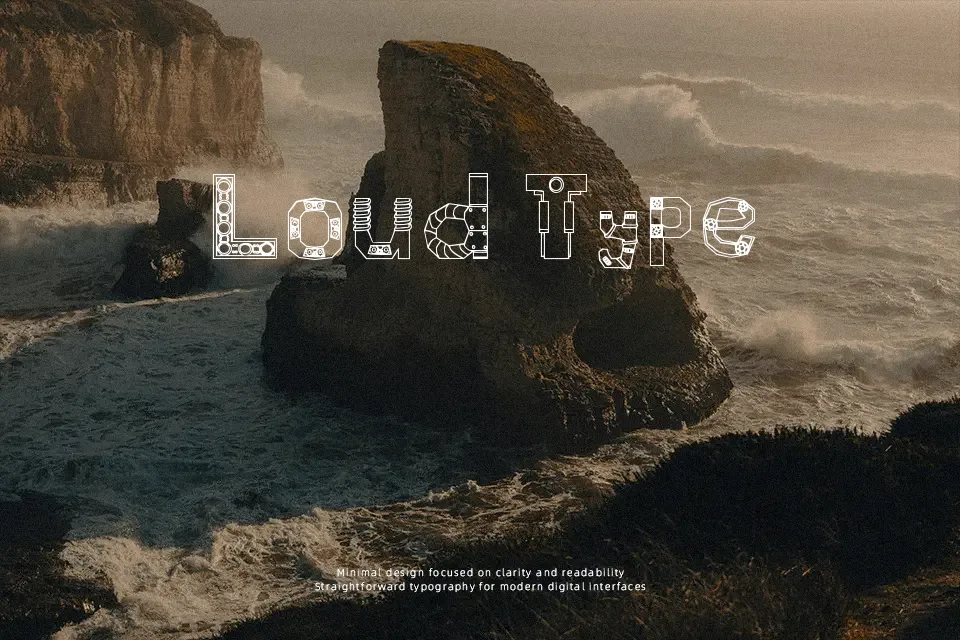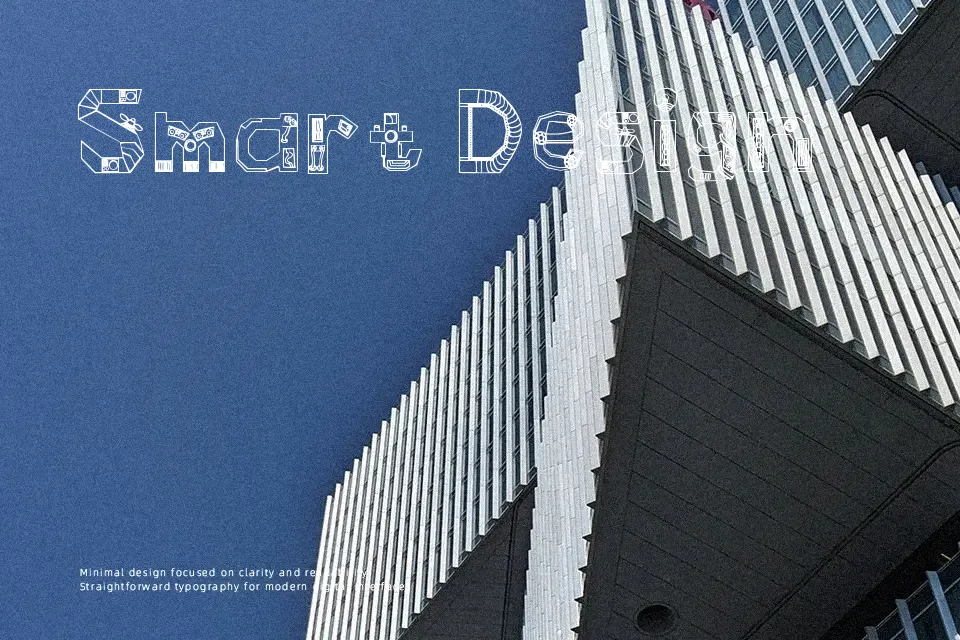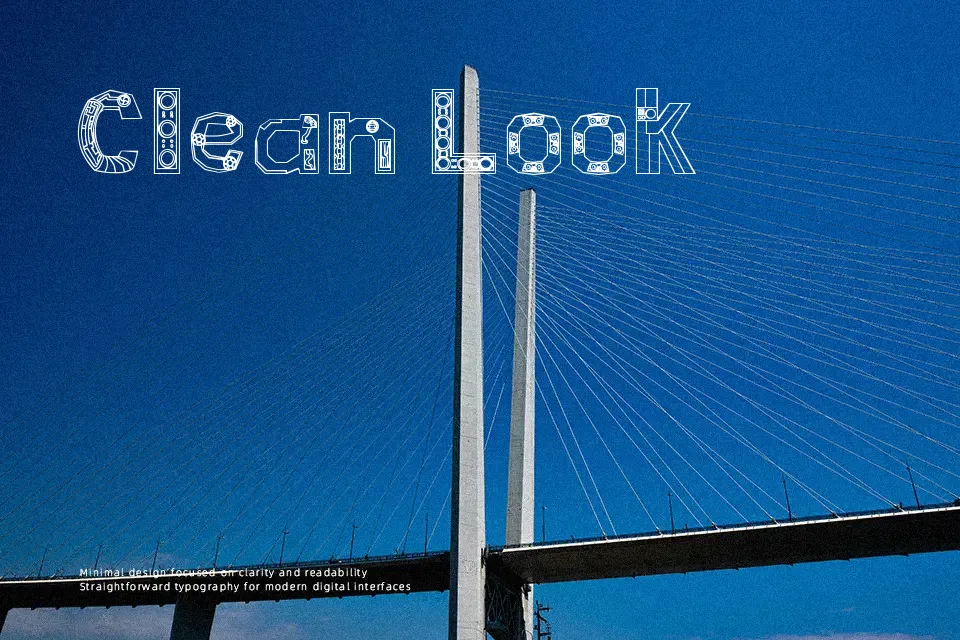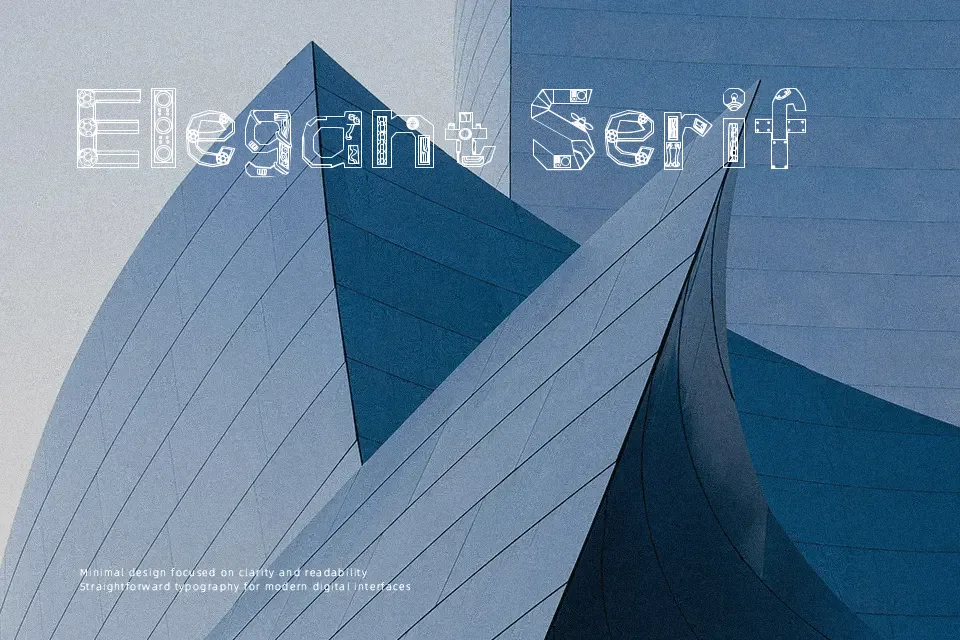
Steampunk Machinery Font
Steampunk Machinery Font showcases bold, mechanical letterforms constructed with ornate gear motifs and sturdy industrial silhouettes. Heavy stroke weights and rigid outlines give each character a pronounced decorative presence, while generous spacing prevents intricate cog elements from merging. The glyph proportions remain uniform across uppercase forms, ensuring consistent rhythm across short phrases. This typeface performs exceptionally well in large-scale headlines, escape room signage, and themed product packaging where mechanical aesthetics are central. However, the dense internal linework reduces clarity at smaller point sizes, making the letterforms unsuitable for body copy or small interface labels.
Best For: retro gaming titles, industrial event posters, escape room signage, themed merchandise packaging
Not Ideal For: continuous reading, body text, small interface labels, dense editorial layouts
Perfect for gaming, headline, and logo, with a bold and decorative style.